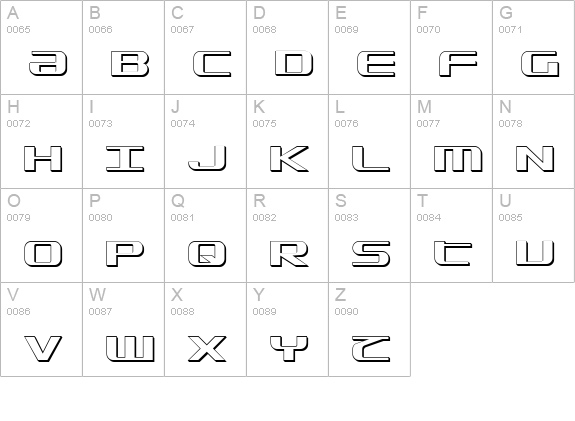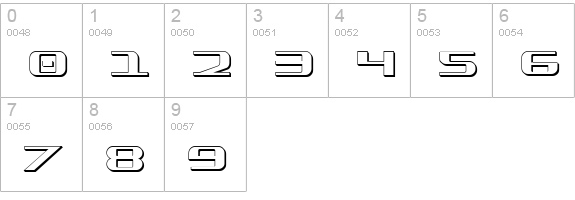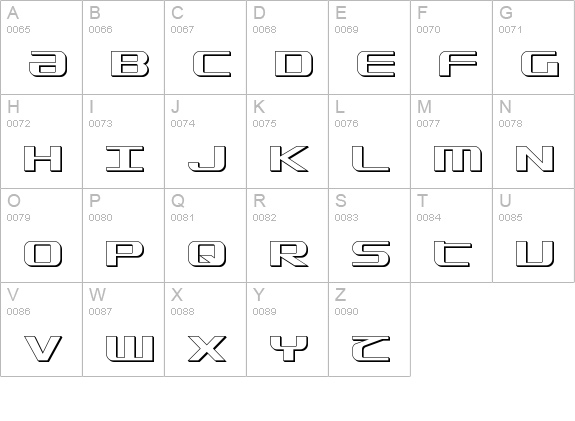
The SDF 3D font is a stunning and modern typeface that brings a dynamic and three-dimensional quality to your designs. With its sleek lines and bold presence, this font is sure to make a statement in any project. The intricate details of the 3D effect add depth and dimension, making your text come alive on the page. Best of all, the SDF 3D font is available for free download at FontsMarket.com. This means you can easily incorporate this eye-catching font into your creative projects without any cost. Whether you're designing a poster, website, or any other visual media, the SDF 3D font is a versatile choice that will elevate your work to the next level. Download it today and unleash the power of three-dimensional typography in your designs.